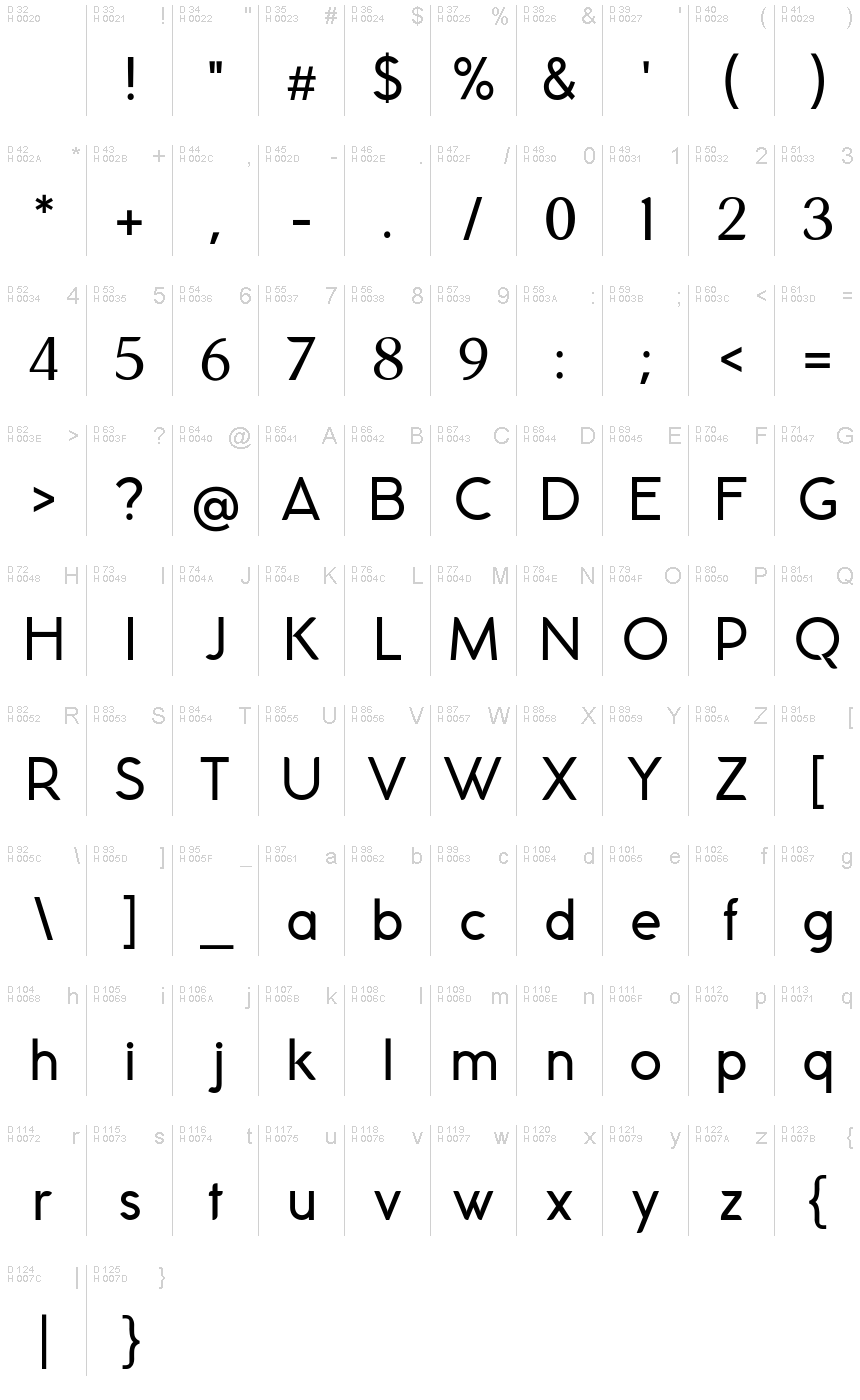
Mondapick
Mondapick font by UI Creative is a geometric sans serif following the modern approach with minimalistic characters. The professional font comprises clean lines and rounded shapes, each with balanced proportions for a contemporary feel. This free font displays a simple spellbinding message whatever it’s used for.
Mondapick can be used in multiple designs both printed and digital like advertising, branding for companies, magazines design, and packaging projects. It is also perfect for posters, social media platforms covers or posts, websites headings/texts, and UX/UI purposes.